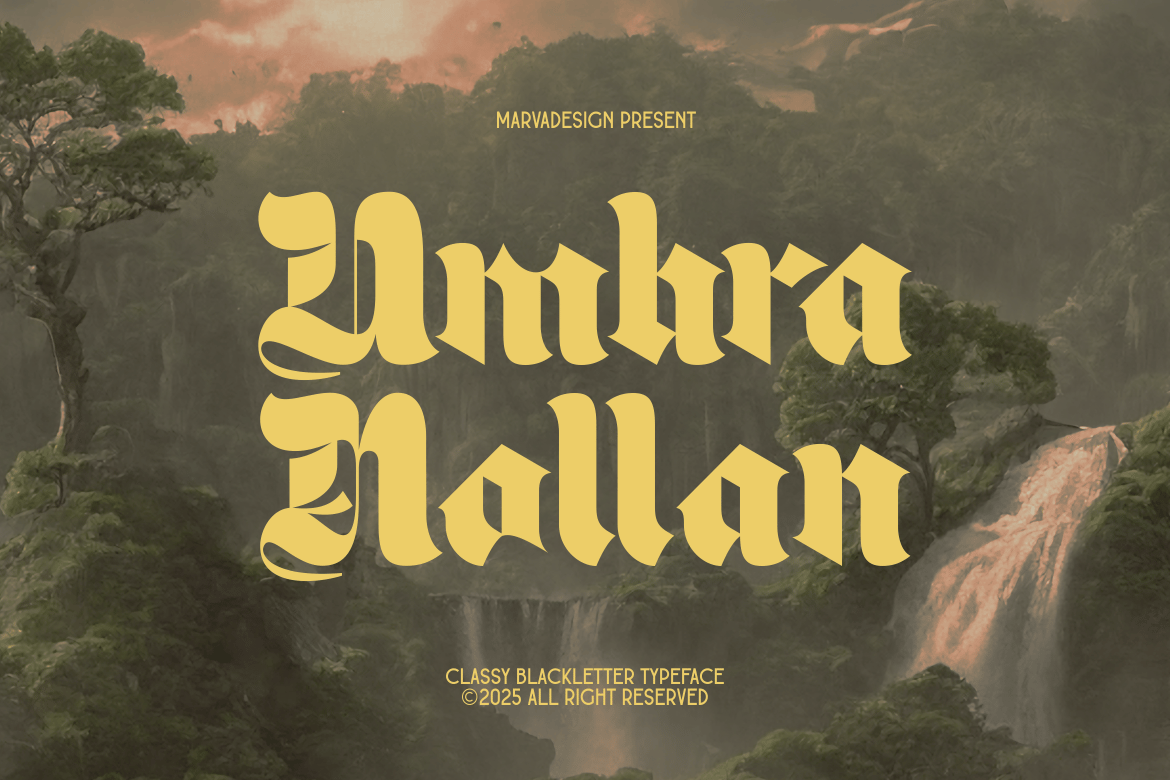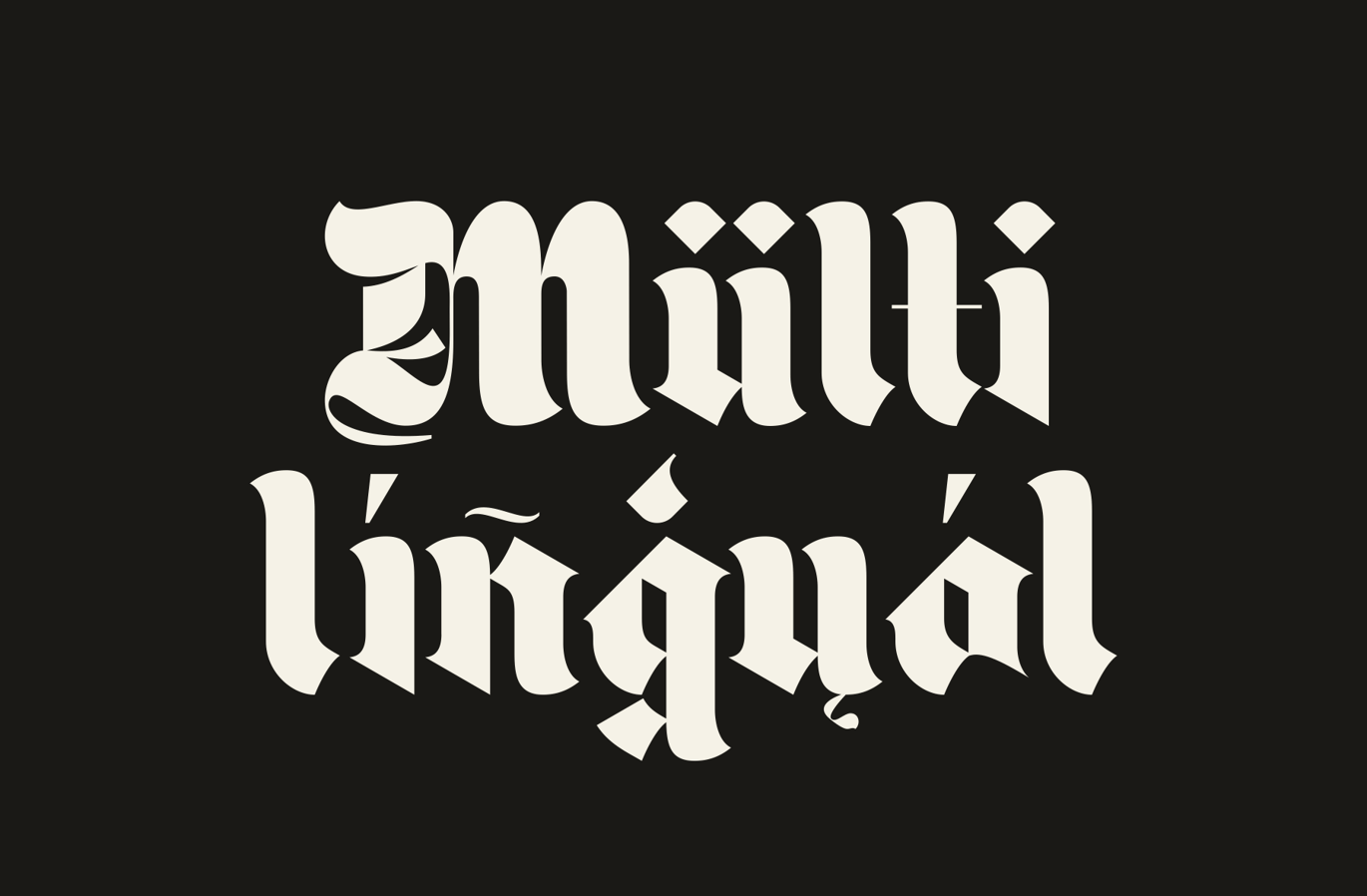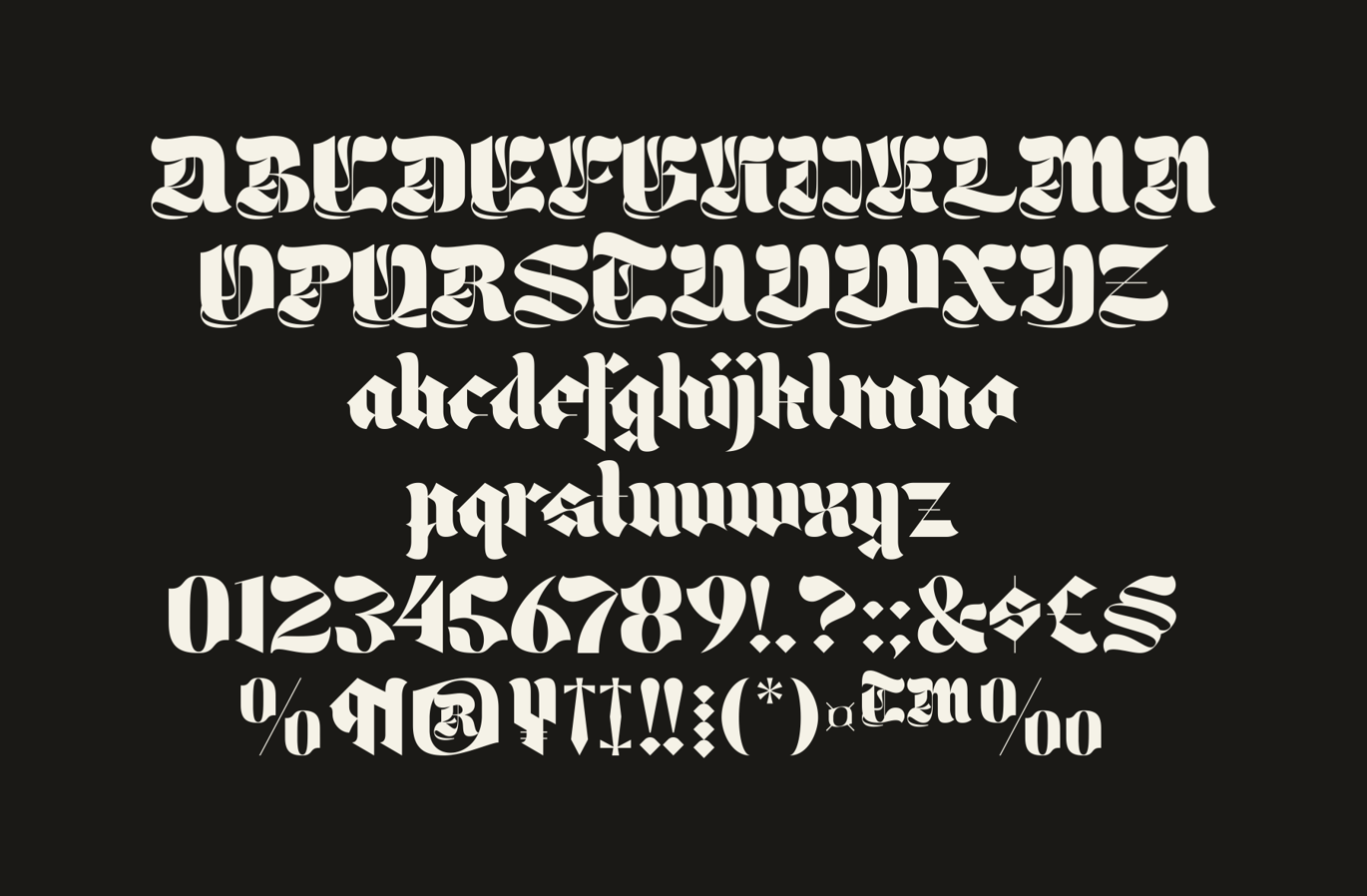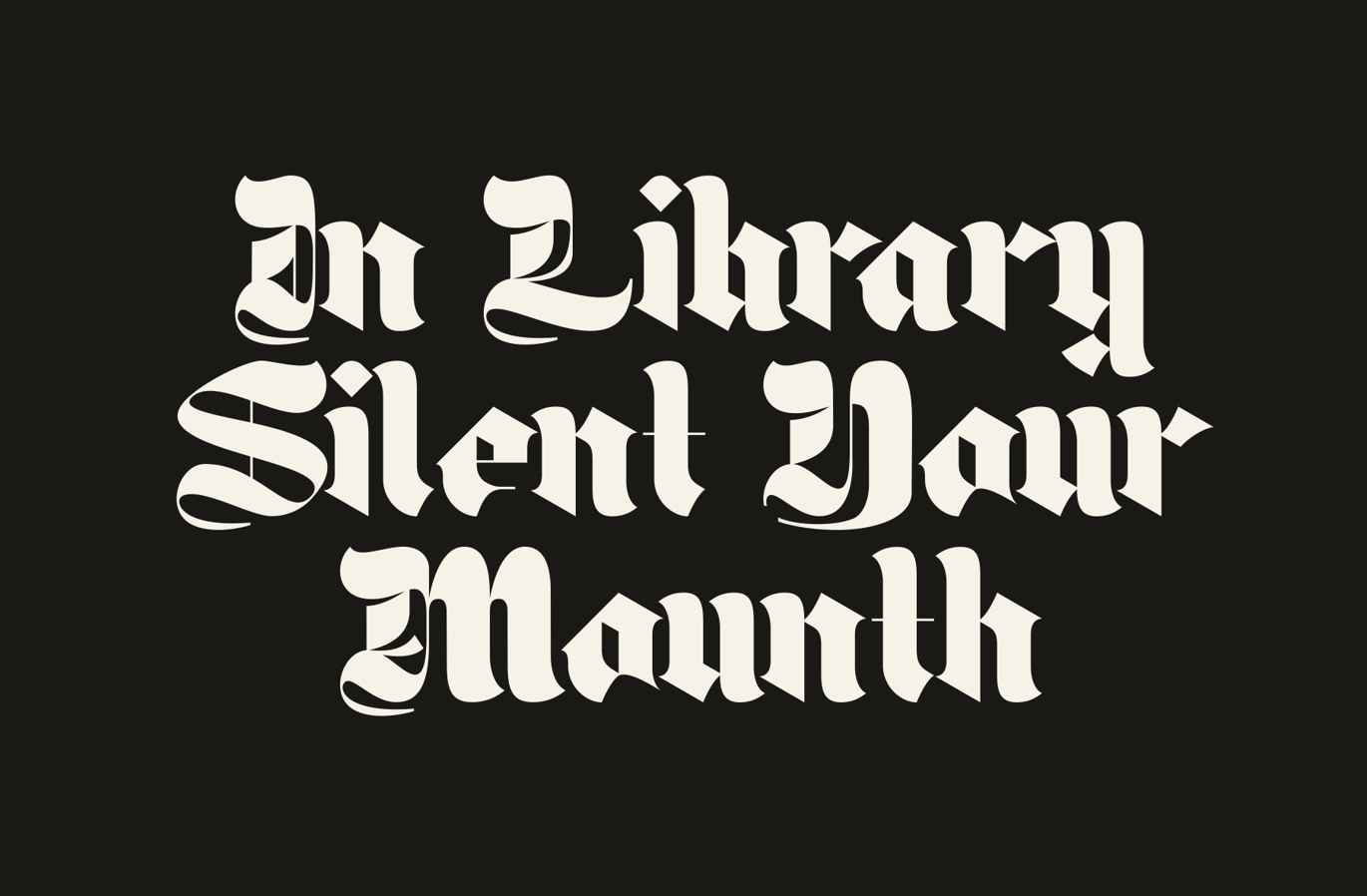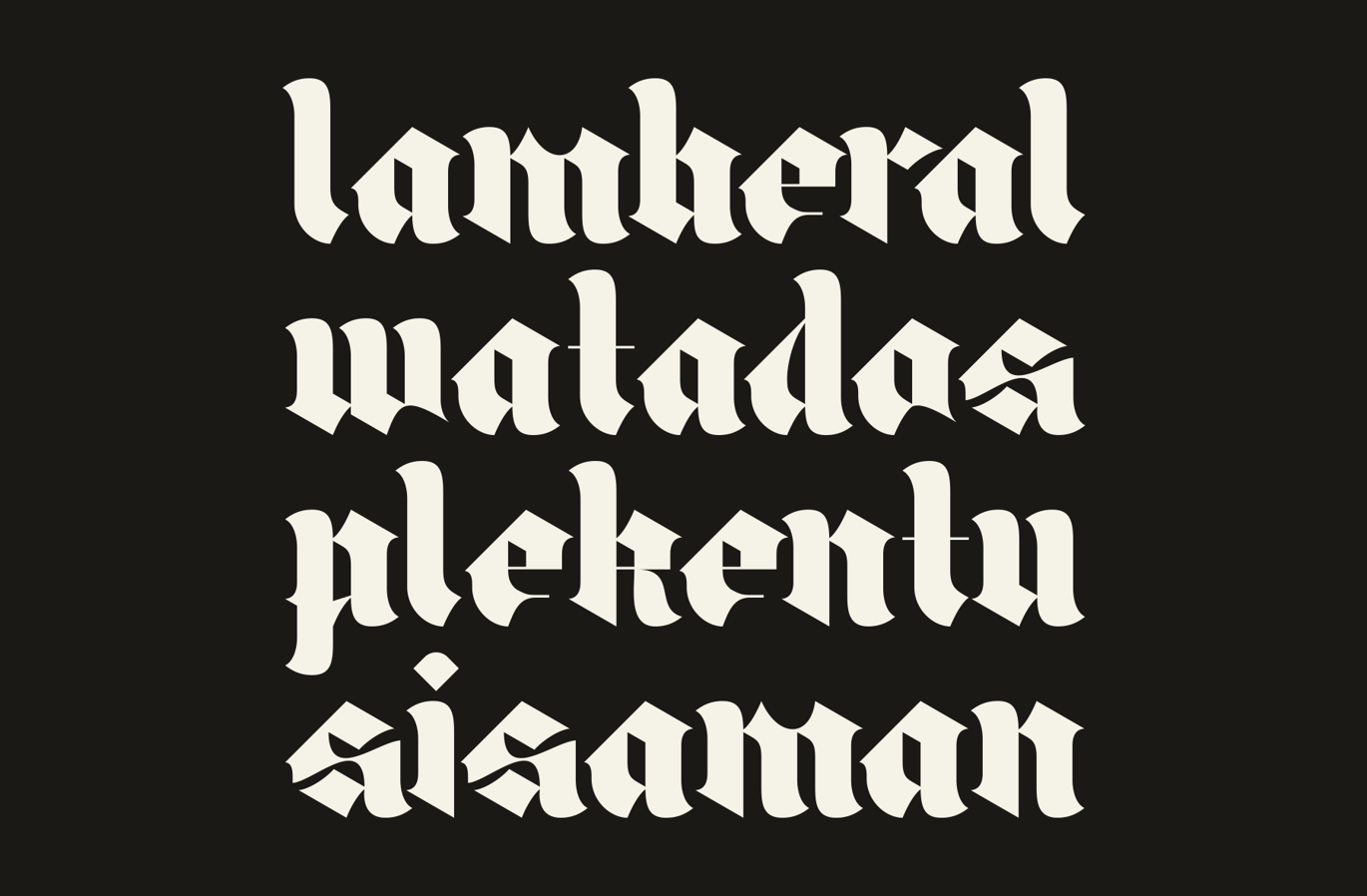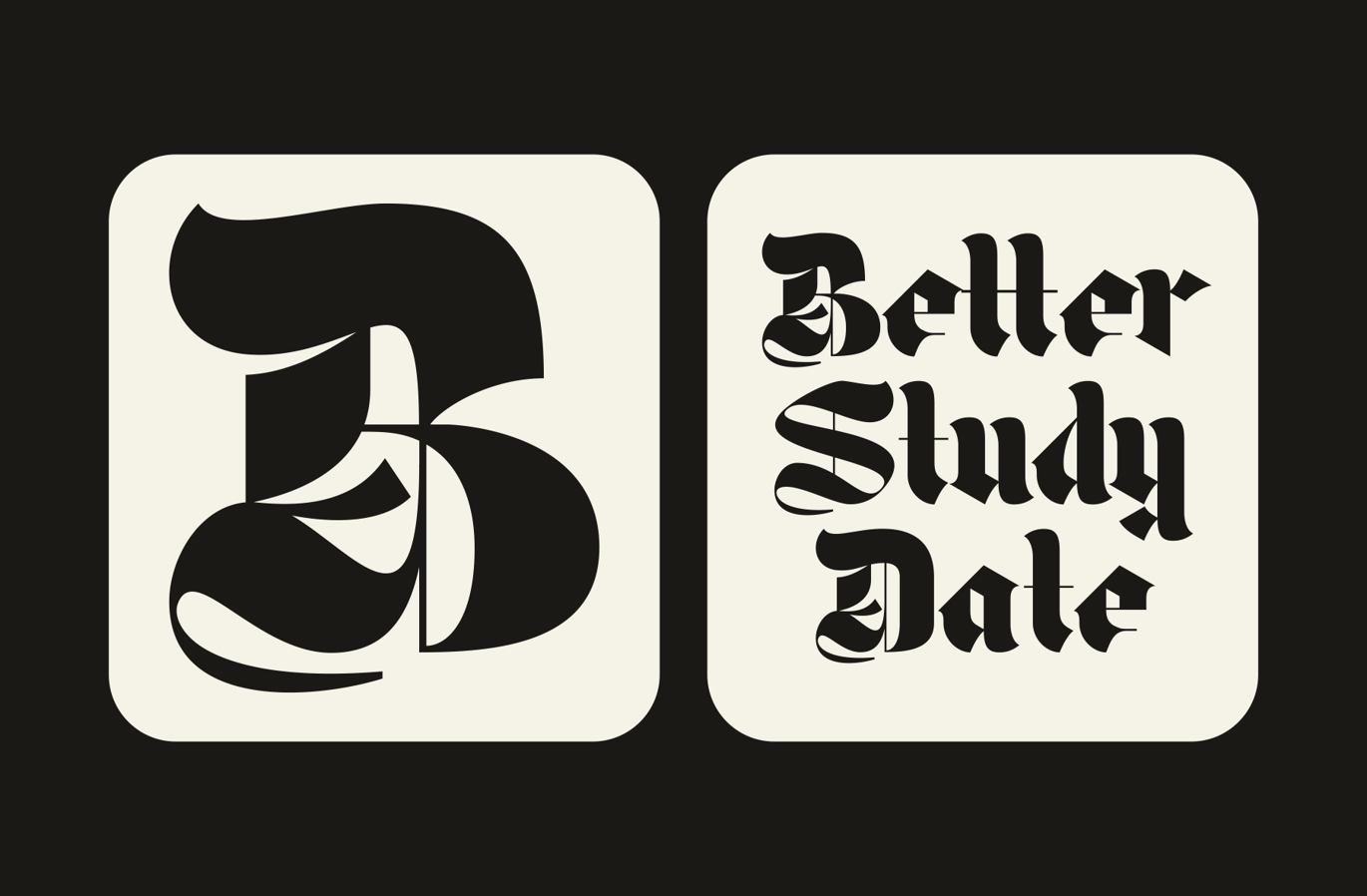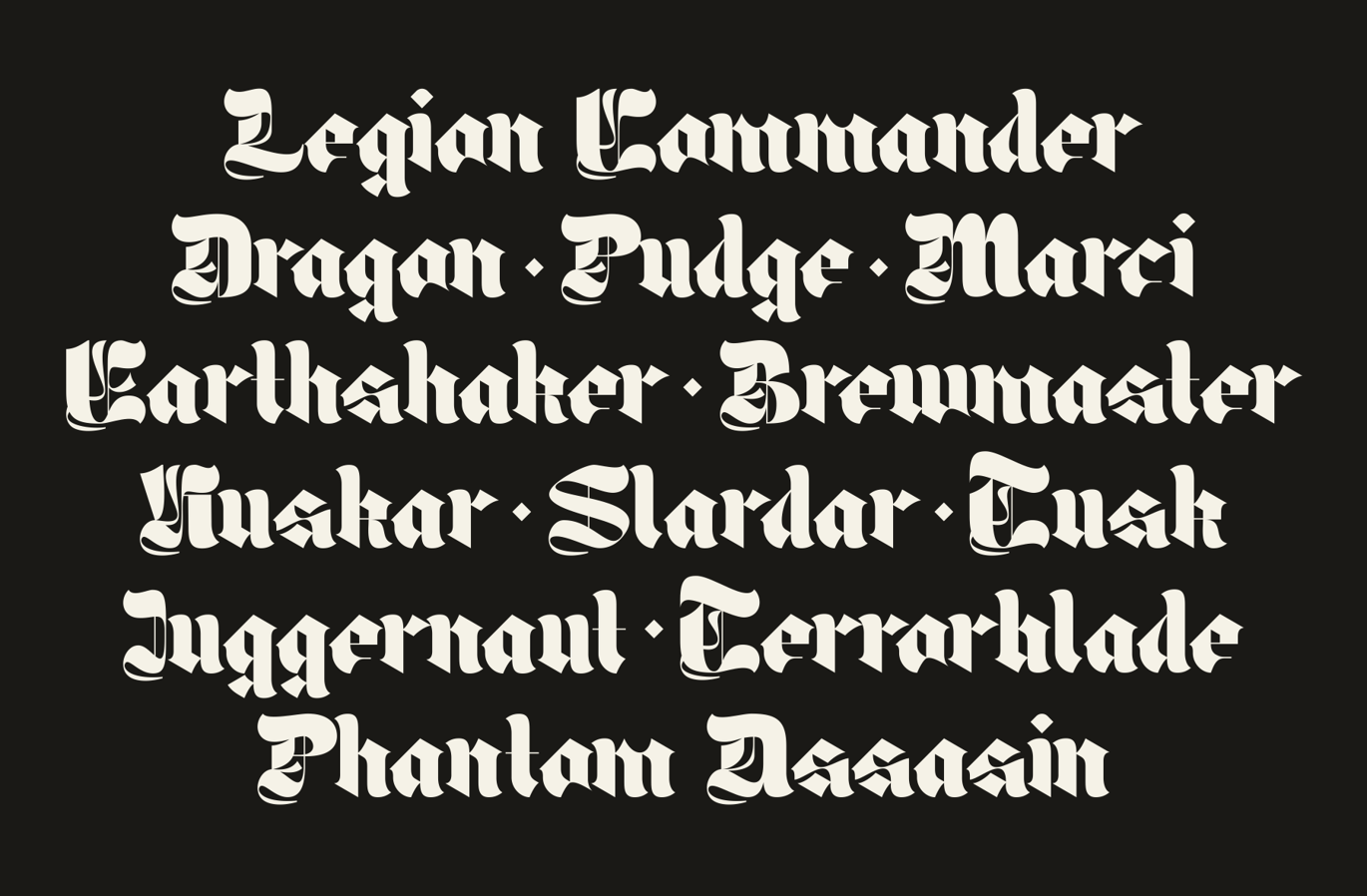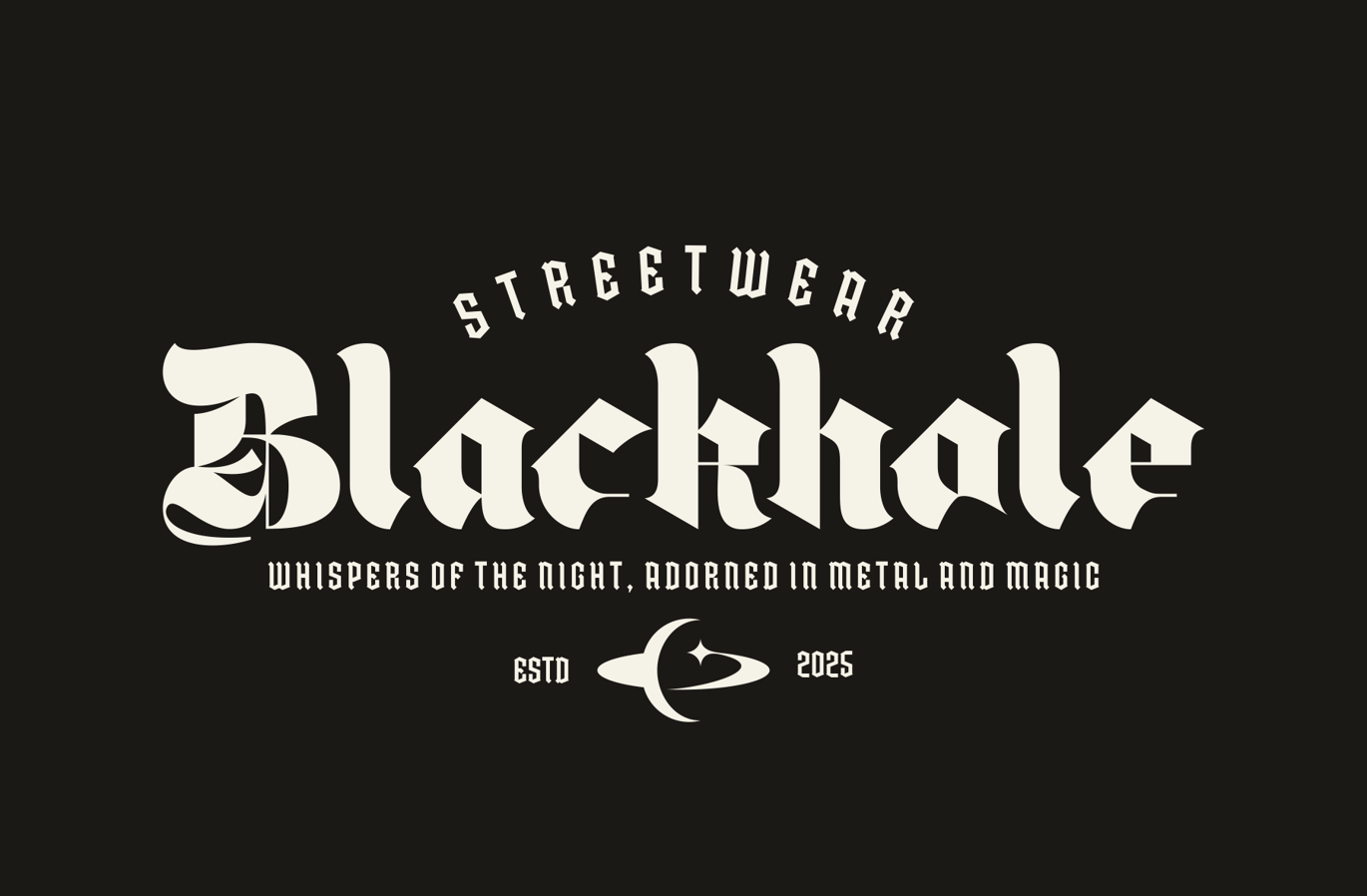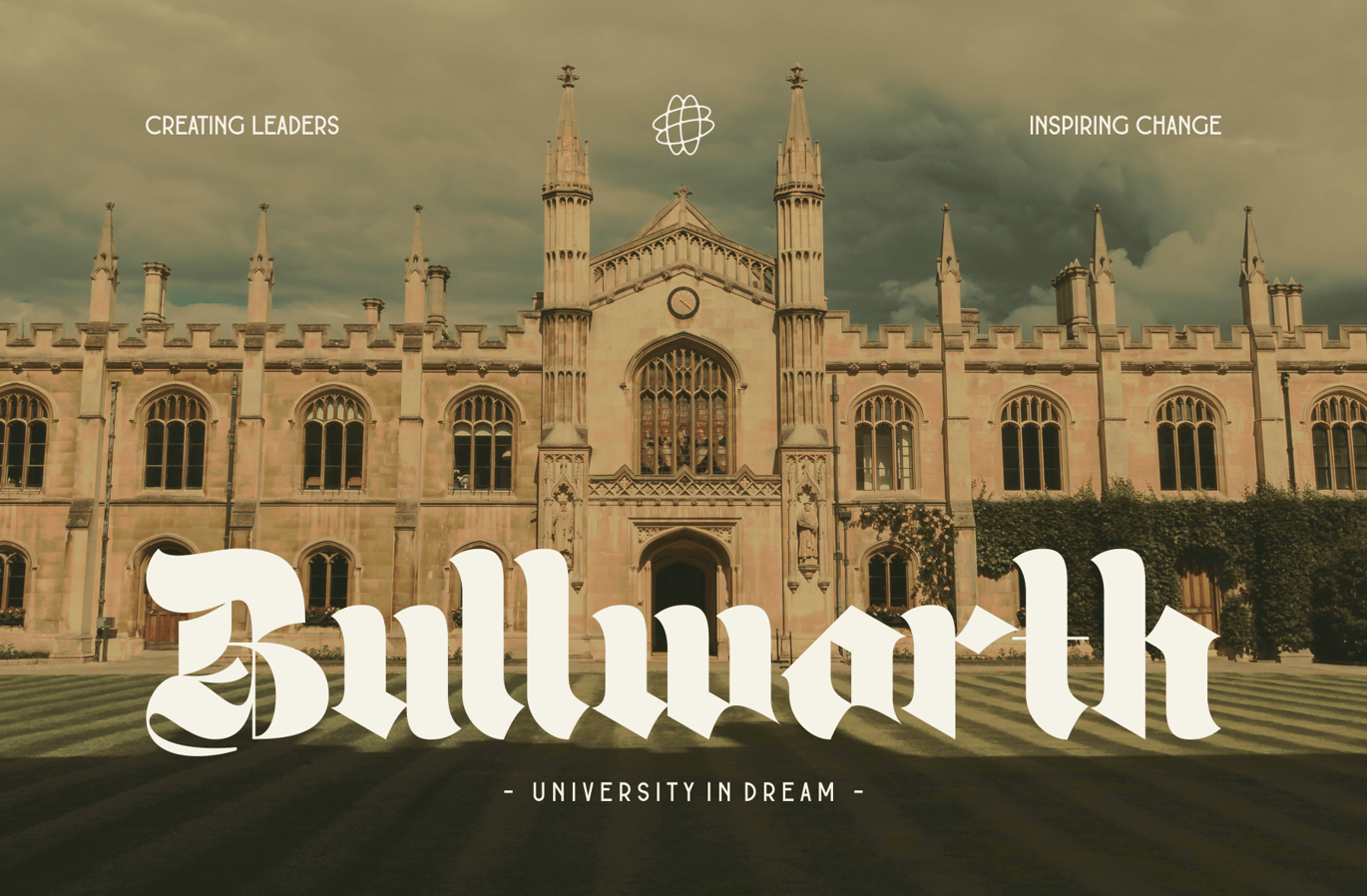
Umbra Nollan – Classic Blackletter Font
Introducing New Blackletter Font The Umbra Nollan is a Blackletter typeface with a bold, structured, and highly stylized look. The font features sharp edges, dramatic strokes, and intricate details that evoke a sense of tradition, power, and sophistication. The typeface is reminiscent of medieval script styles, often associated with historical documents, gothic aesthetics, and heraldic designs.
This Blackletter font is perfect for branding, logos, and product packaging, especially in industries that emphasize heritage, luxury, or urban fashion. It is often used in streetwear brands, music-related visuals (such as heavy metal or hip-hop), and fantasy or historical-themed projects. Additionally, it can be effectively applied in editorial designs, posters, and promotional materials that want a distinctive and strong visual impact.